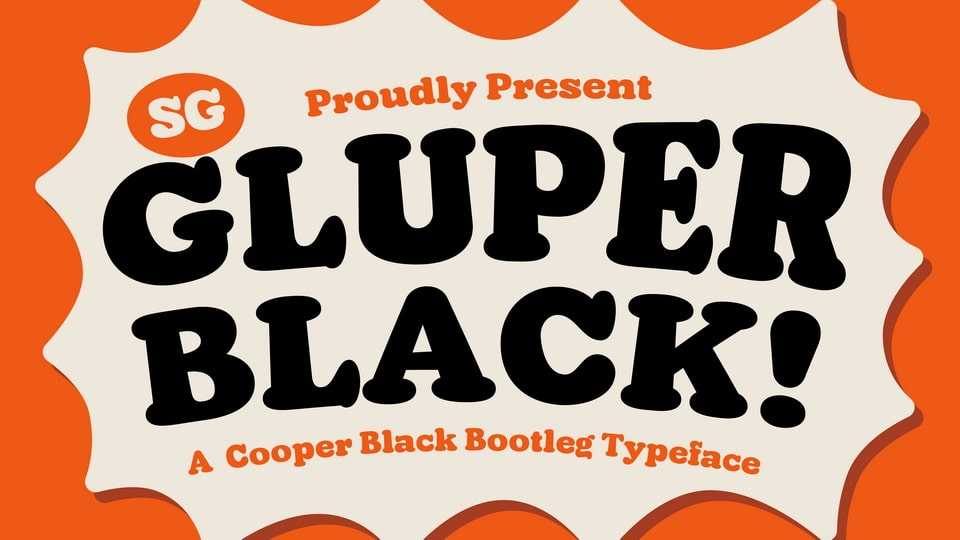
Download SG Gluper font, a typeface inspired by the OG Cooper Black typeface that is intended for display use. This retro serif font combination can handle many typographic uses but is best suited for headlines, branding, and logos.